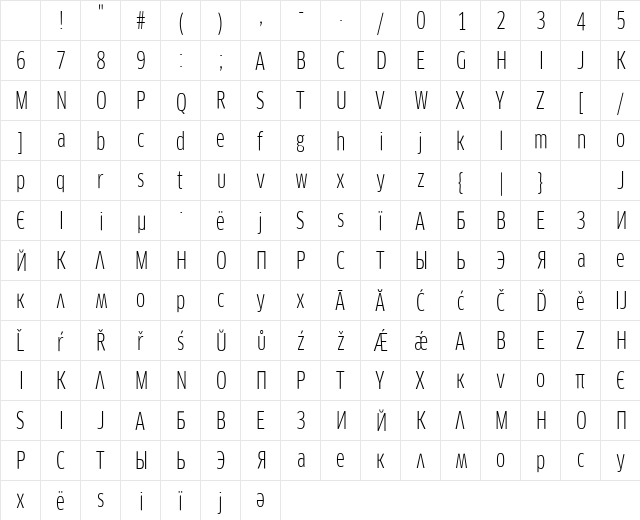
Complete ClanPro-CondBook glyph index. Displaying only characters natively supported by ClanPro-CondBook font.
ClanPro-CondBook is a composed and adaptable typeface that performs quietly and consistently across a wide range of design contexts. Its narrow stance lets it pack a punch even in space-constrained designs.
Who designed the ClanPro-CondBook font?